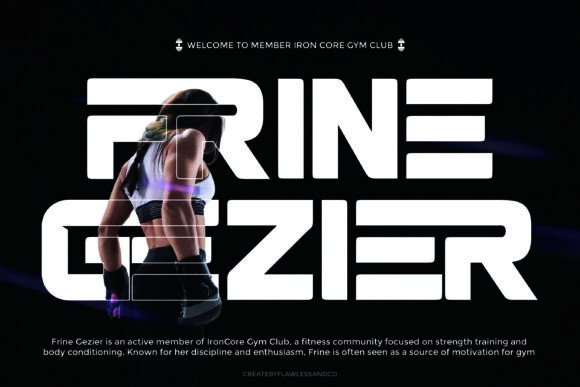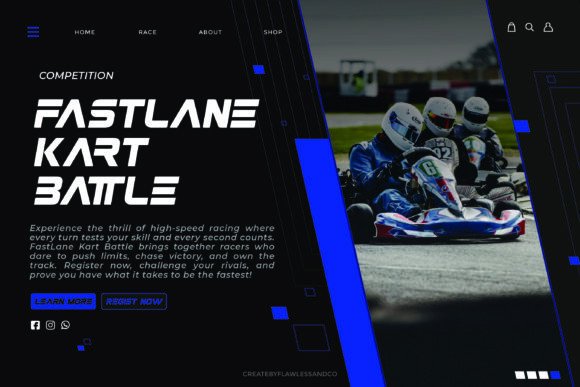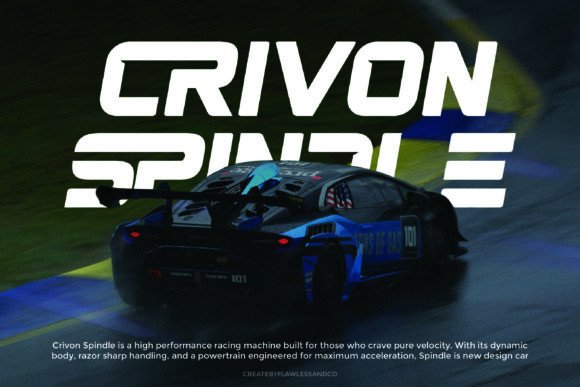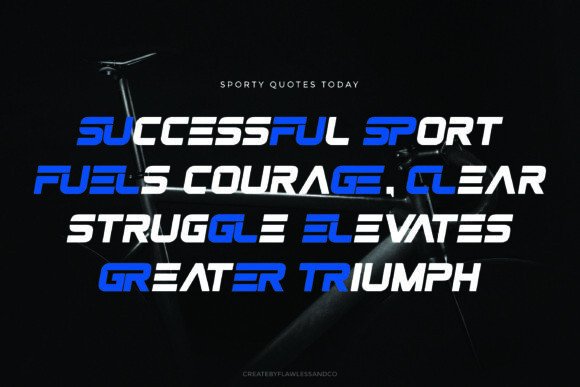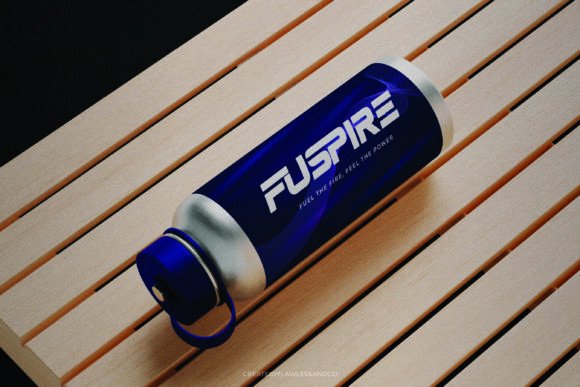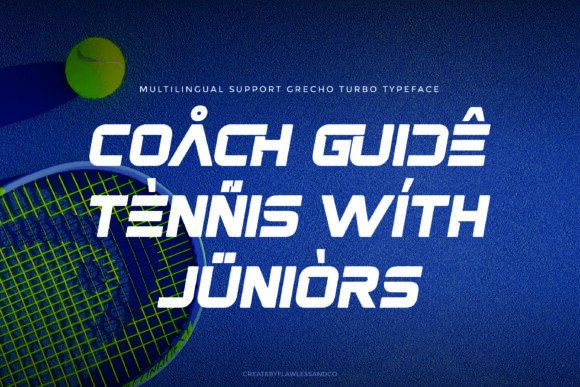
Introduction to Grecho Turbo Font
Remember the rush of adrenaline you feel when you’re about to unleash your creativity on a new design project? The blank canvas stares back at you, begging for your imagination to bring it to life. For designers like you, finding the perfect font can be the key to unlocking that magic. That’s where Grecho Turbo Font comes in – a game-changing, high-quality typeface designed to capture the essence of modern athletics.
With its bold, aerodynamic shapes and sharp edges, Grecho Turbo Font radiates confidence and impact. Whether you’re working on a racing-themed campaign, creating sports branding, or designing fitness merchandise, this font is sure to bring unstoppable energy to your designs. And the best part? It’s available for free download, making it a valuable resource for any creative project.
Key Features of Grecho Turbo Font
- Unique, modern design with a transparent background, perfect for layering and customization.
- Includes 6 styles: Regular, Bold, Italic, Bold Italic, Outline, and Fill, to suit various design needs.
Honest Review: Grecho Turbo Font
I recently came across the Grecho Turbo Font and I’m excited to share my thoughts on this design resource. As a designer, I’m always on the lookout for high-quality fonts that can elevate my creative projects.
What works well: ✨ The Grecho Turbo Font has a modern and sleek design that’s perfect for creating eye-catching headings and titles. The font is available for free download, making it a great option for designers on a budget. The transparent background is a nice touch, allowing for easy layering and composition.
Here are some key features that I like about the Grecho Turbo Font:
- Modern and sleek design
- High-quality typography
What could be improved: ⚠️ While the Grecho Turbo Font is a great resource, I did find that it’s not as versatile as some other fonts I’ve worked with. The font is best suited for digital designs, and it may not be the best choice for print materials.
Overall, I’m impressed with the Grecho Turbo Font and I think it’s a great addition to any designer’s toolkit. While it may have some limitations, the benefits far outweigh the drawbacks.
Alternatives to Grecho Turbo Font
Pacifico is a high-quality script font perfect for creative projects that require a touch of elegance. It features a transparent background and is ideal for use in headings and titles. When to use: Use Pacifico for design projects that need a sophisticated and refined look. How it compares to Grecho Turbo Font: Pacifico has a more elegant and refined feel compared to Grecho Turbo Font, making it suitable for high-end design projects.
Great Vibes is a modern and stylish font that can be used as a design resource for various creative projects. It features a transparent background and is ideal for use in headings and titles. When to use: Use Great Vibes for design projects that need a modern and trendy feel. How it compares to Grecho Turbo Font: Great Vibes has a more modern and trendy feel compared to Grecho Turbo Font, making it suitable for design projects that require a fresh and youthful look.